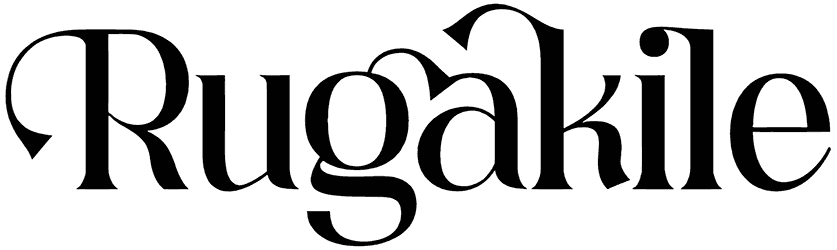
Rugakile Font
There’s something so appealing about the way some of Rugakile’s letters curl from top to bottom that gets you hooked right away. That’s how this font sets itself apart from the rest of the serif fonts you may already know.
Professionally speaking, there’s always room for improvement in your logo designs if you replace your business card font with Rugakile. It works like magic for your brands of accessories, such as rings, or when you’re designing posters for a boutique.